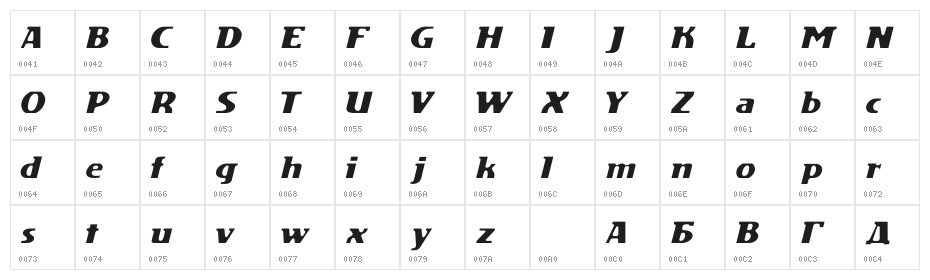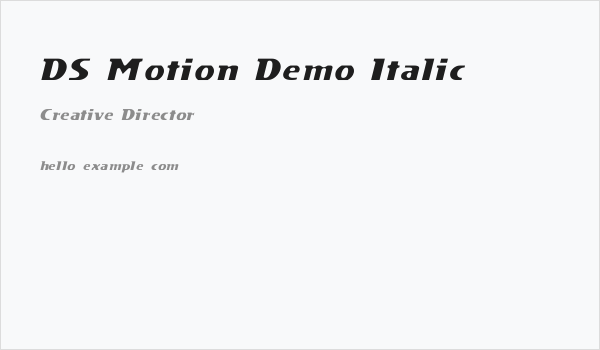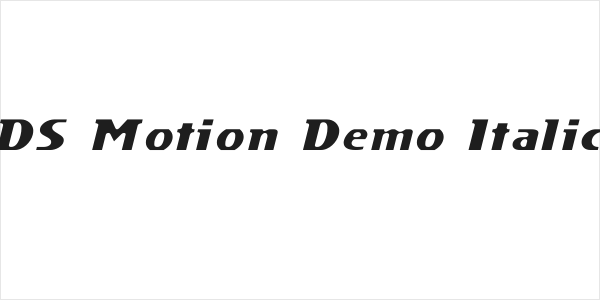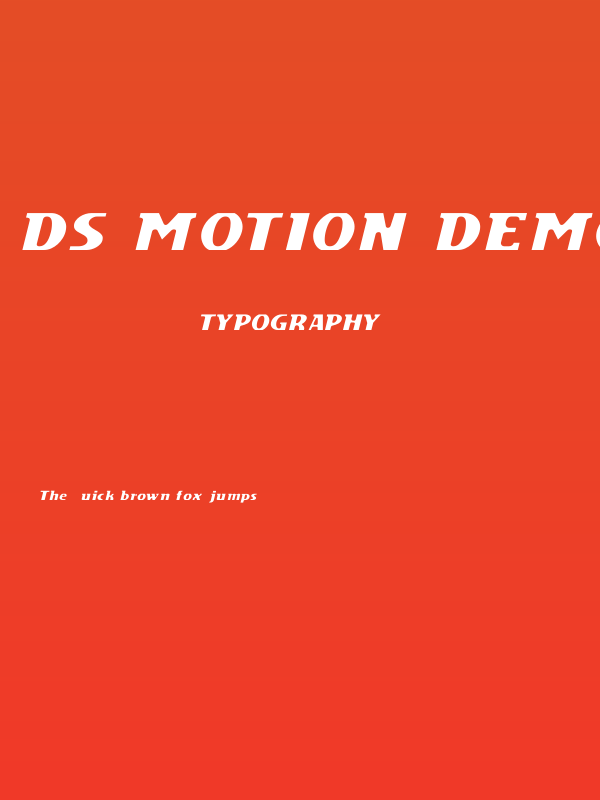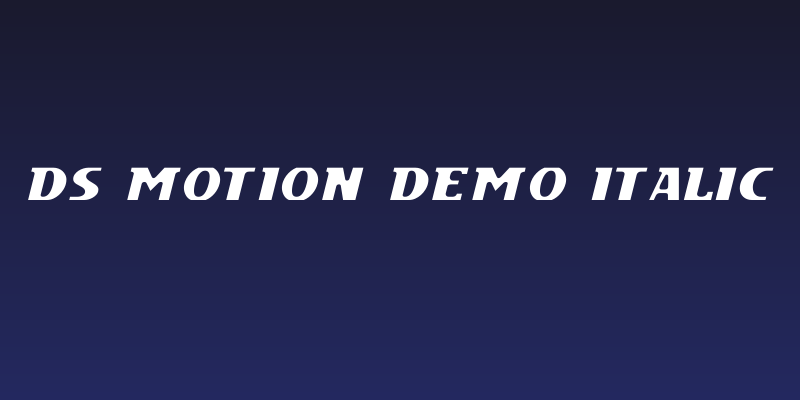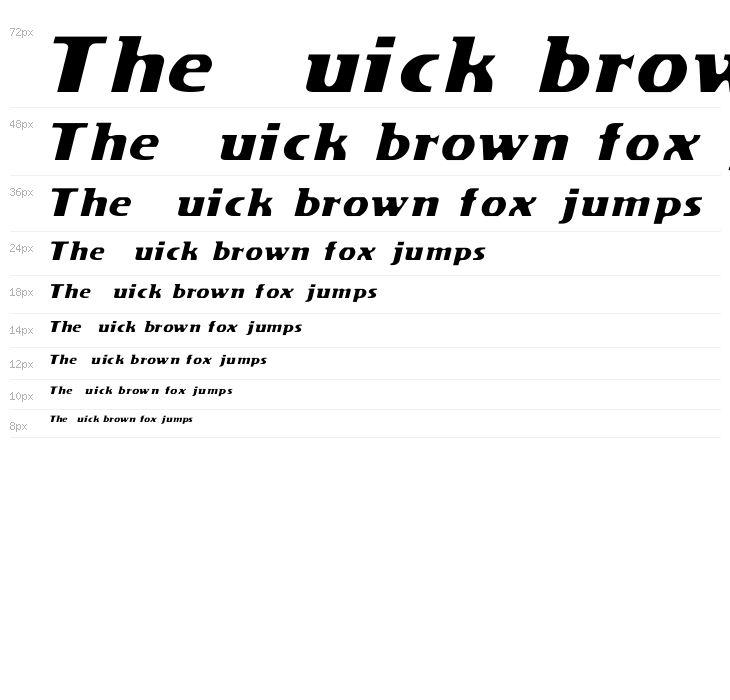
DS Motion Demo Italic Font
DS Motion Demo Italic Description
This font features a dynamic and energetic style with a forward-leaning italic slant, giving it a sense of motion and speed. The characters are bold and robust, with a slightly condensed appearance that enhances its impactful presence. The strokes are consistent in weight, providing a uniform look across all characters. The uppercase letters are strong and commanding, while the lowercase letters maintain a harmonious flow. This font is well-suited for projects that require a bold statement and a modern aesthetic.
| Proposed Projects | Ideal for sports branding, dynamic posters, modern advertising, and any project needing a bold, energetic typeface. |